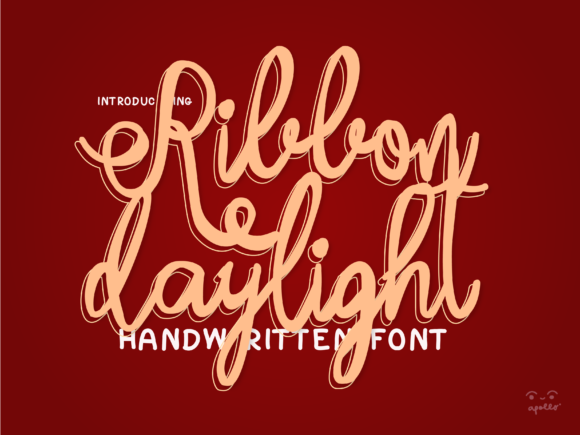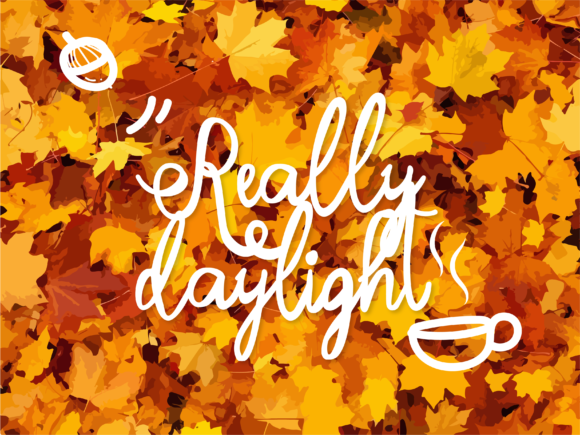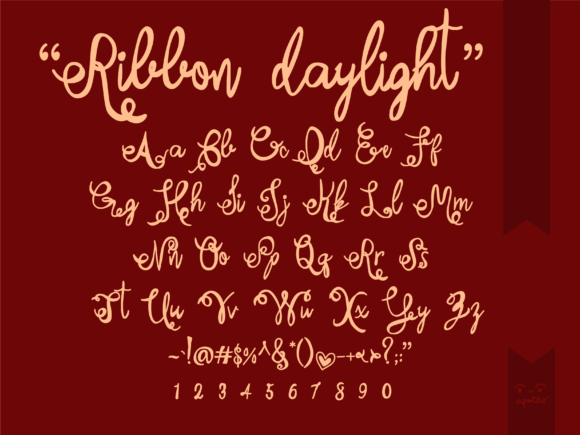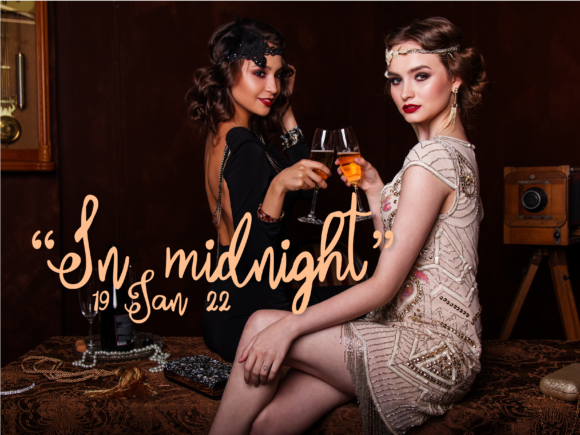
Ribbon Daylight Script Font
About Ribbon Daylight Script Font
Ribbon Daylight Script is inspired by ribbon stokes and swirls on each character. It looks stunning on wedding invitations, thank you cards, quotes, greeting cards, logos, business cards and every other design which needs a handwritten touch.